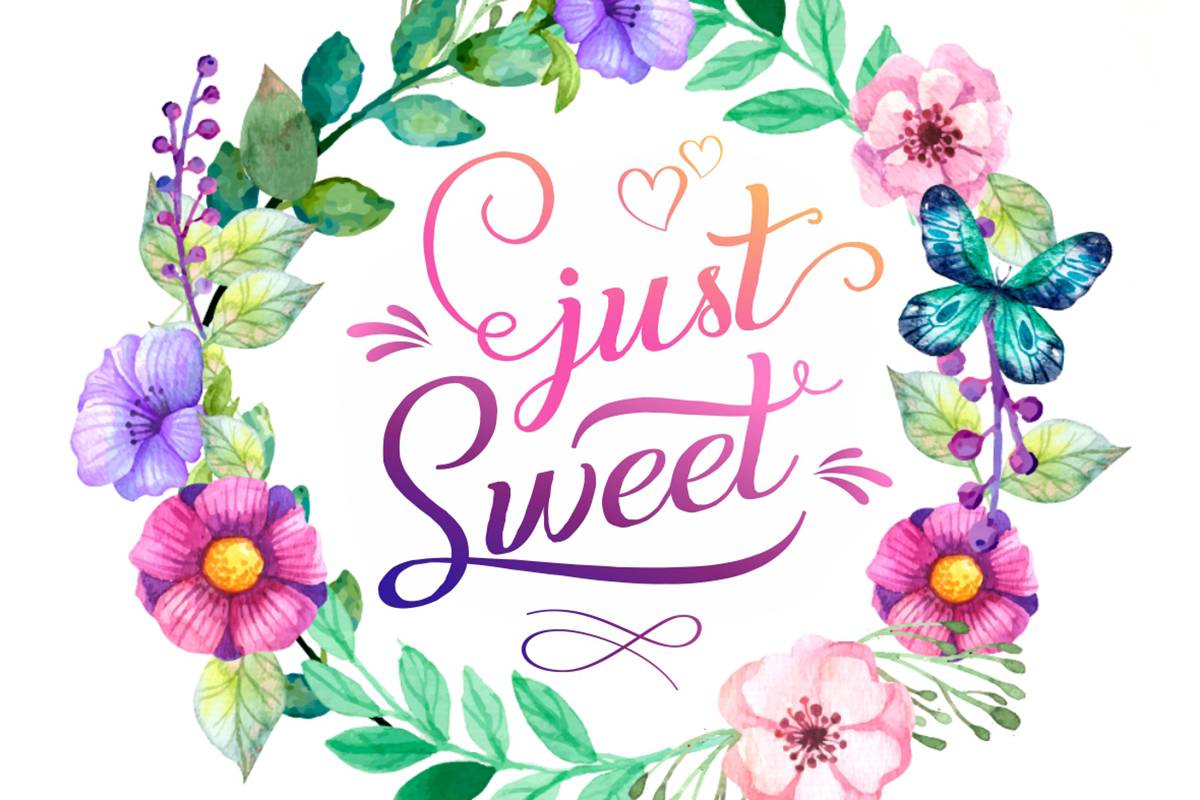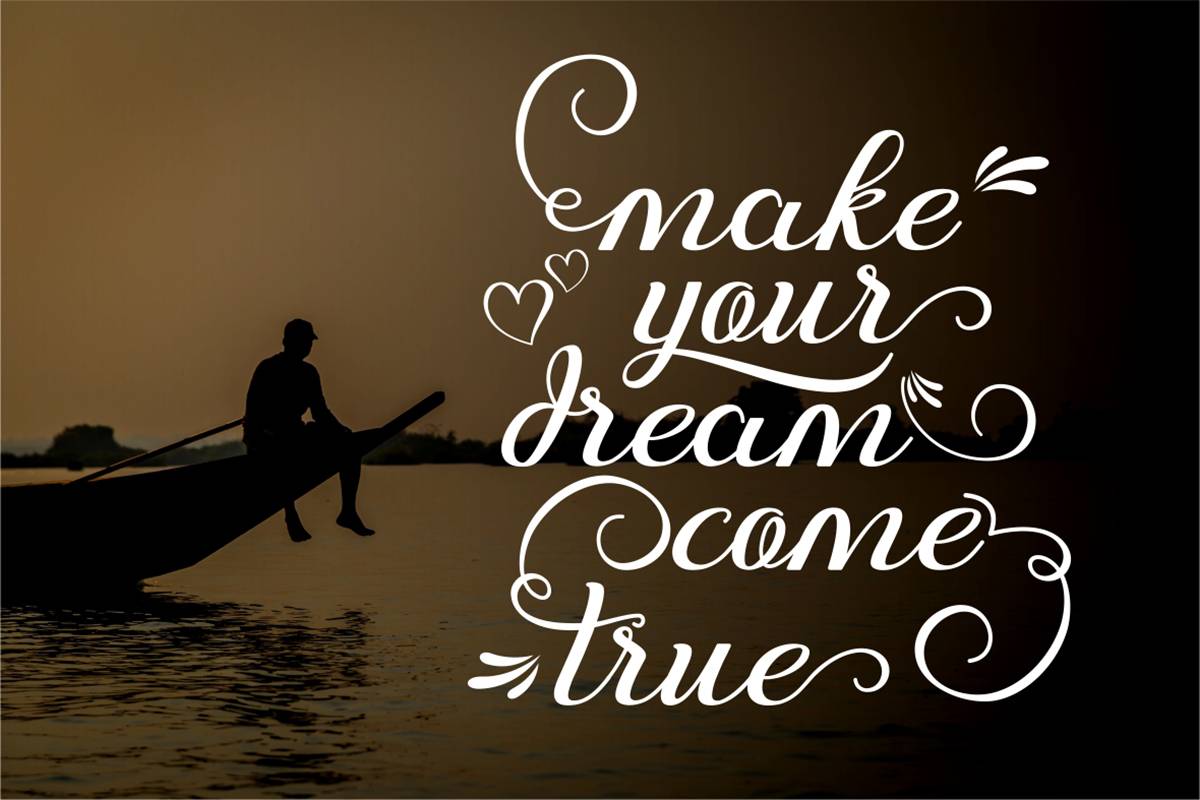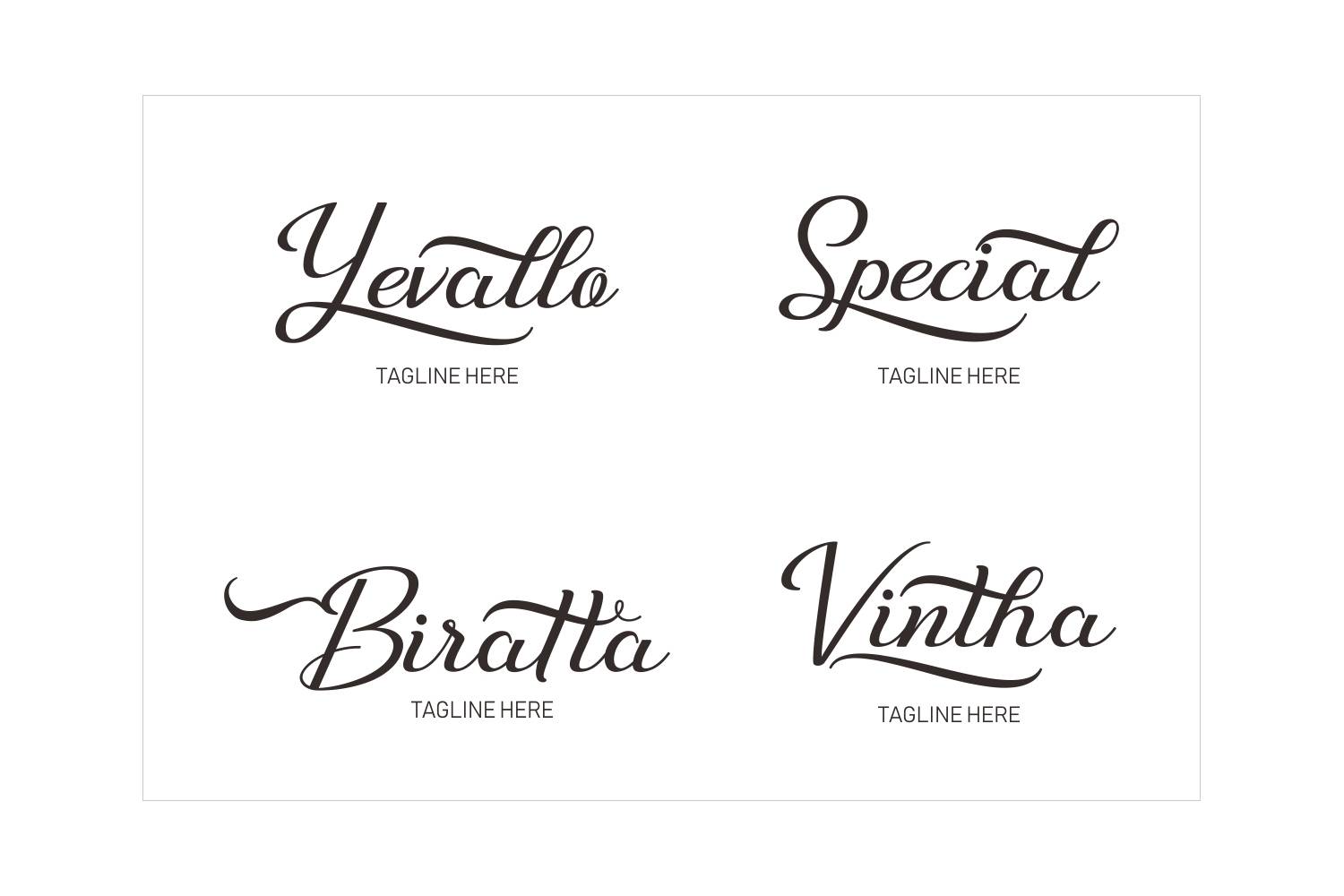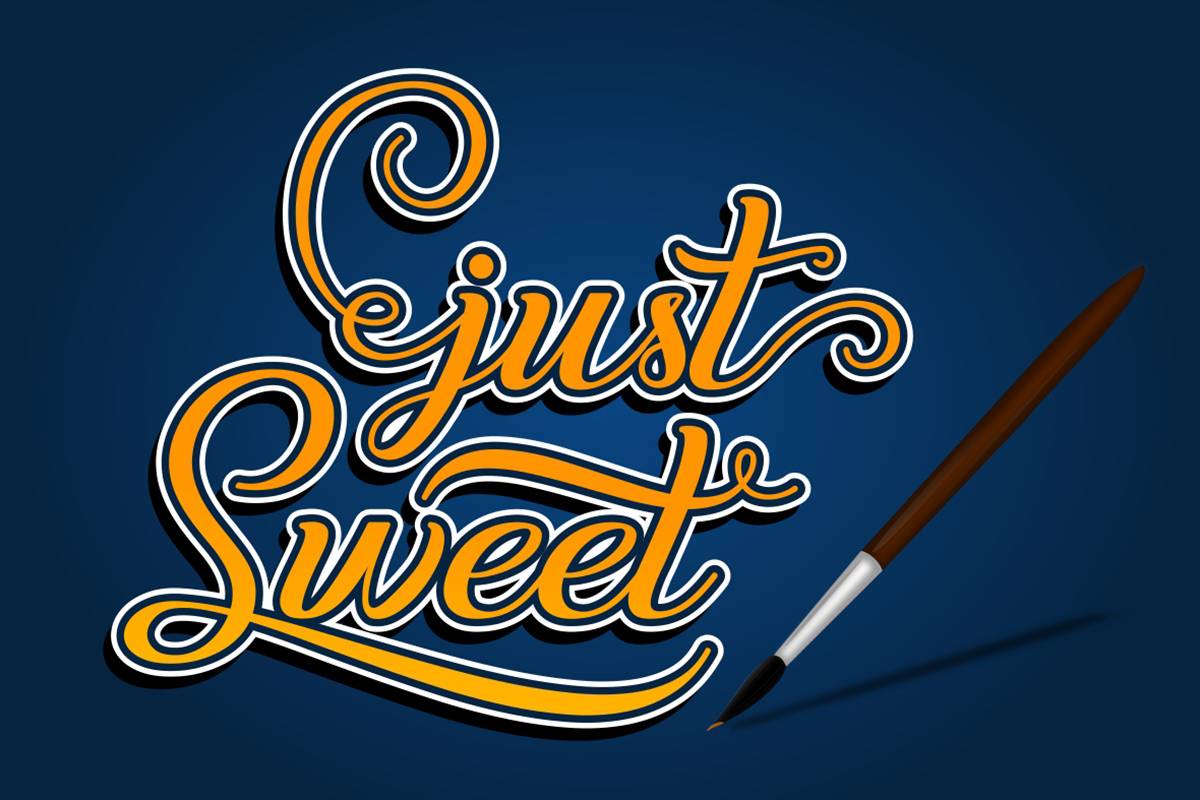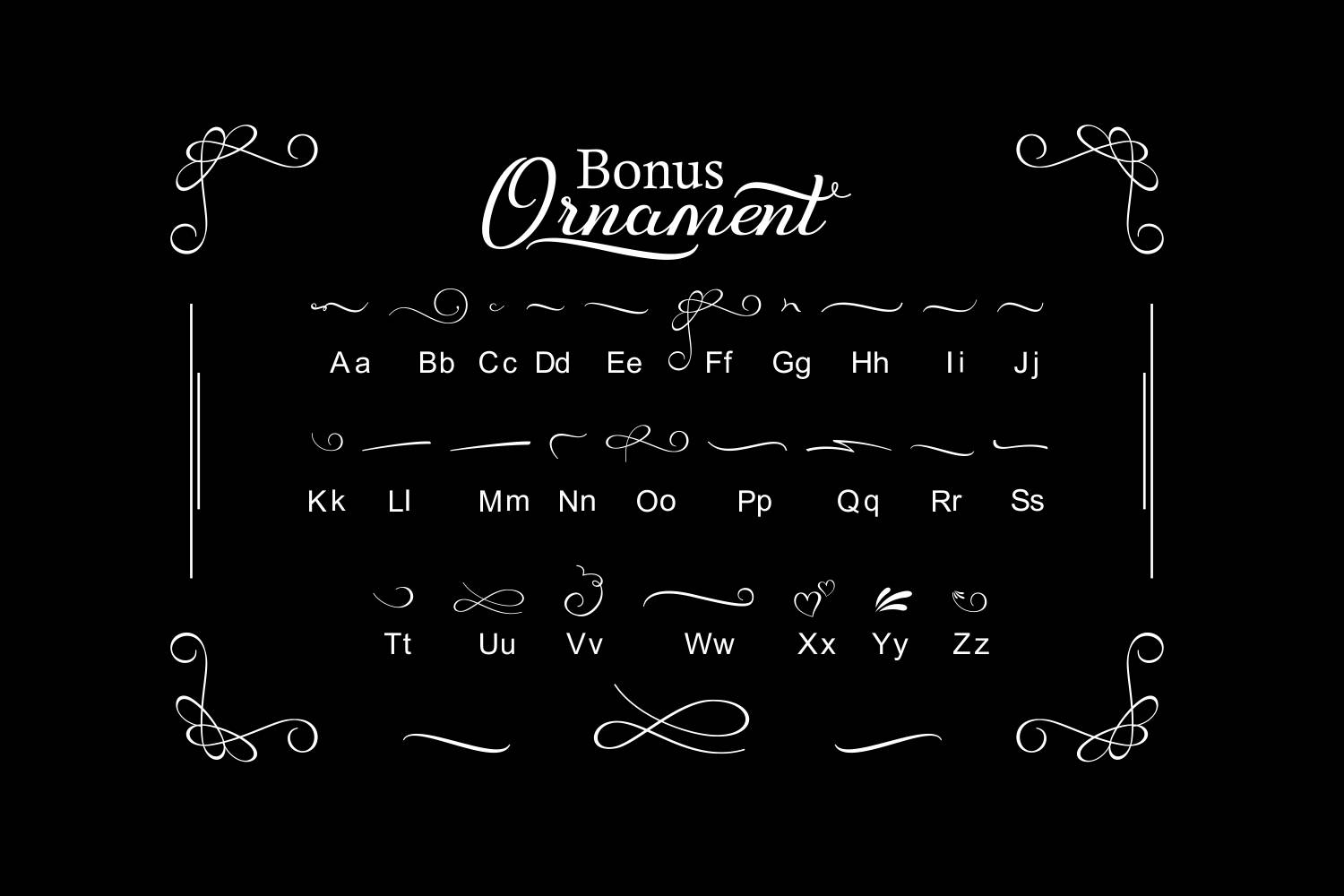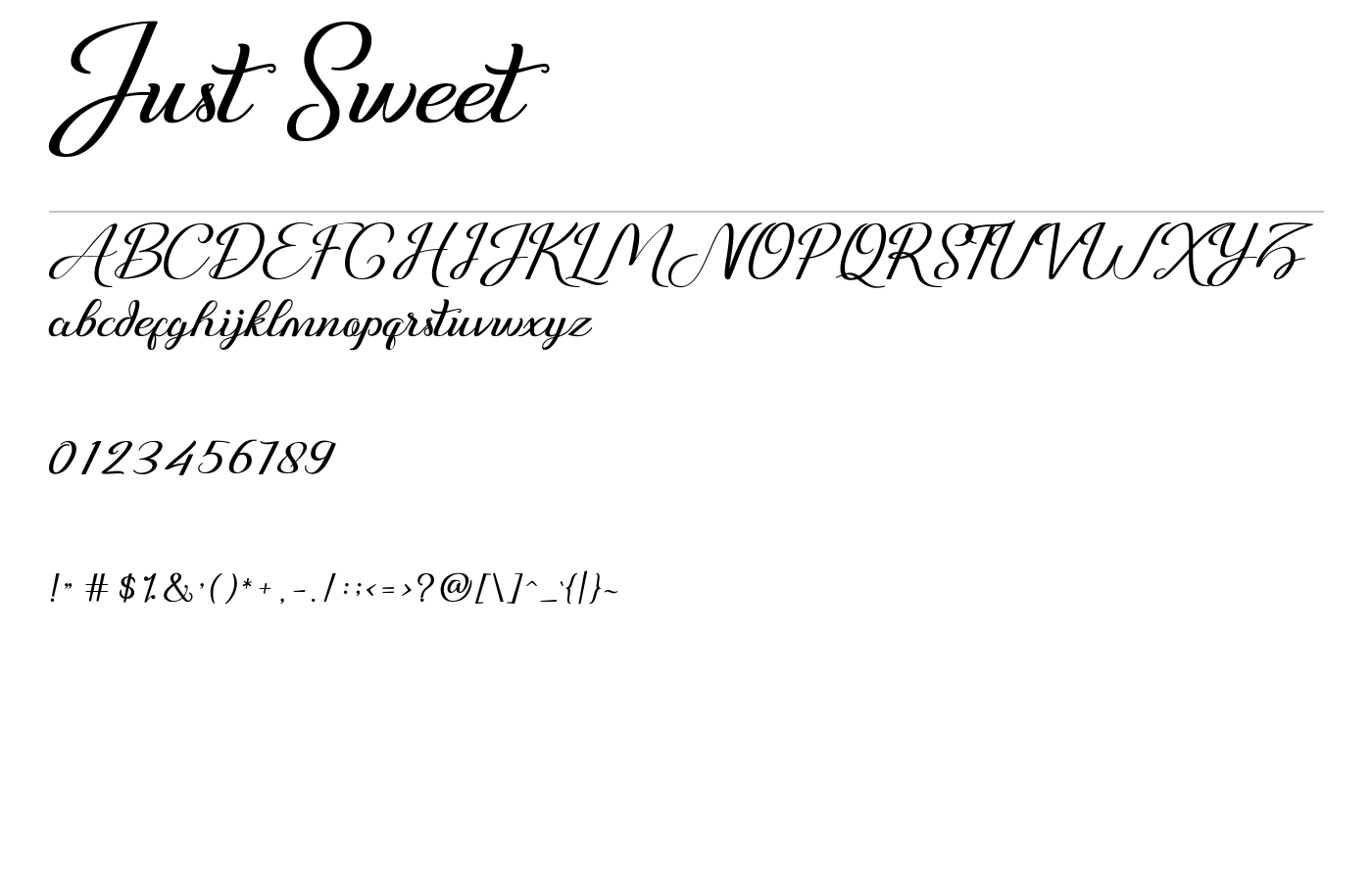
Just Sweet is an elegant script font with a graceful, flowing style that mimics natural handwriting. Its thin, slightly contrasted strokes and smooth curves give it a refined yet approachable feel, making it perfect for invitations, branding, and any design aiming for a delicate, sophisticated touch. This font shines in projects that require a personal and charming look, especially for feminine or luxury themes.
Just Sweet Font
About Just Sweet Font
| Designer | Rizaldi Wandani |